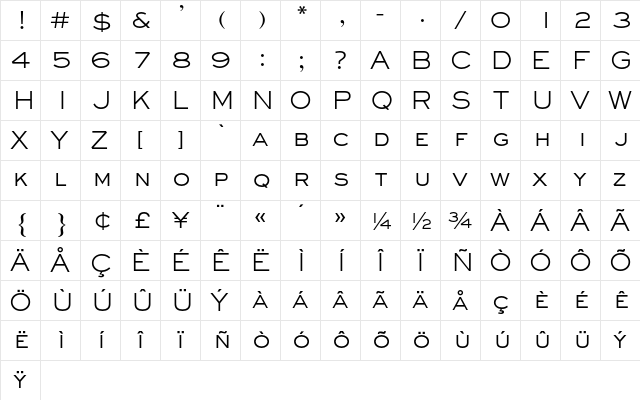
Sackers Gothic Light AT Regular
Design Context for Sackers Gothic Light AT Typeface
Sackers Gothic Light AT has the quiet confidence of well-executed sans-serif typography: versatile, unobtrusive, and dependable at any size. The delicate stroke weight brings airiness and refinement to layouts.
Ideal for fashion and beauty branding, minimal editorial layouts, and premium digital experiences.
Font Pairing: Pair Sackers Gothic Light AT with a medium or bold serif for headlines — the weight contrast creates an elegant, high-end feel.
Pro Tip: Avoid using Sackers Gothic Light AT at very small sizes where its slender strokes can disappear. It performs best at medium to large sizes.